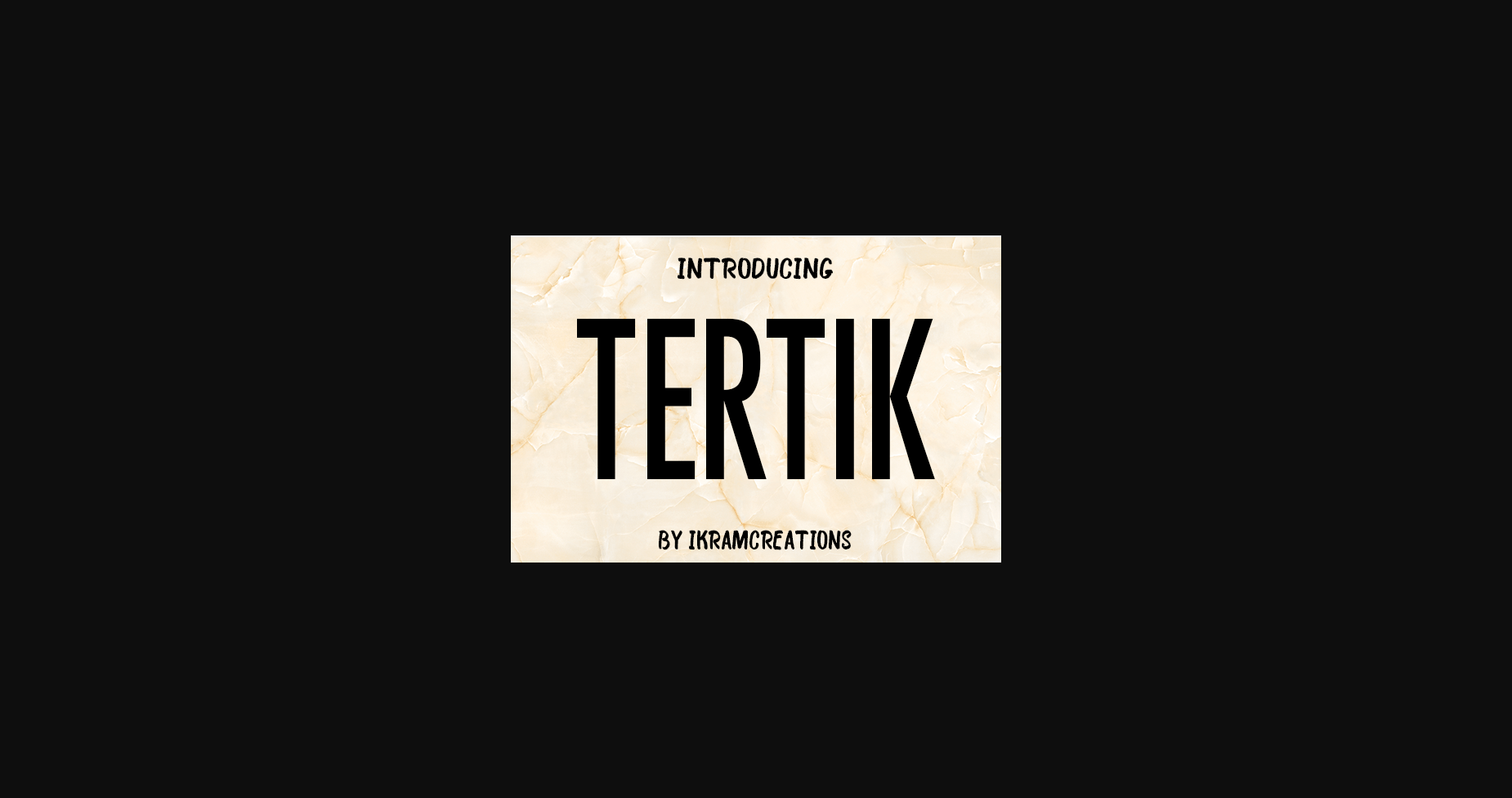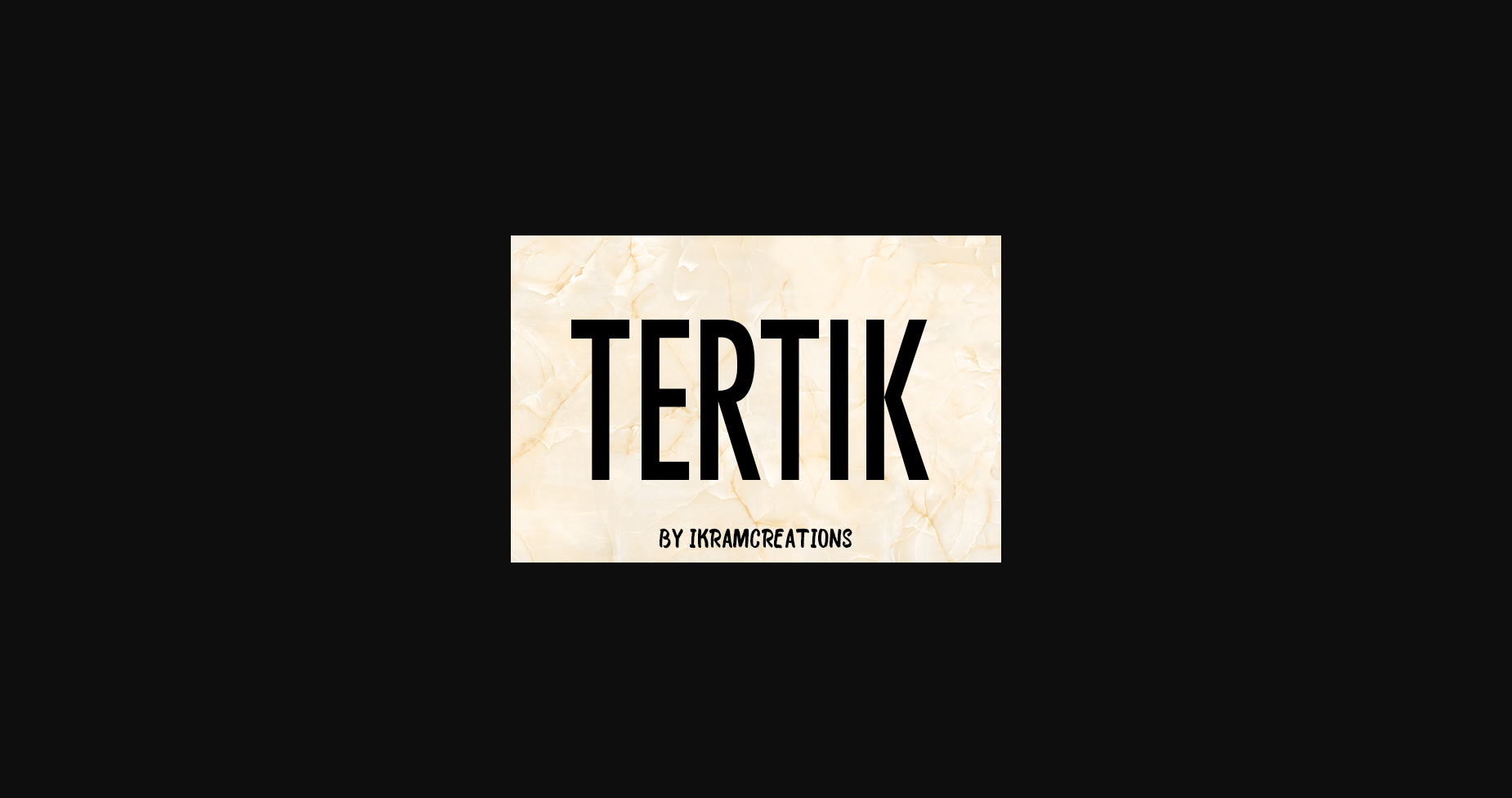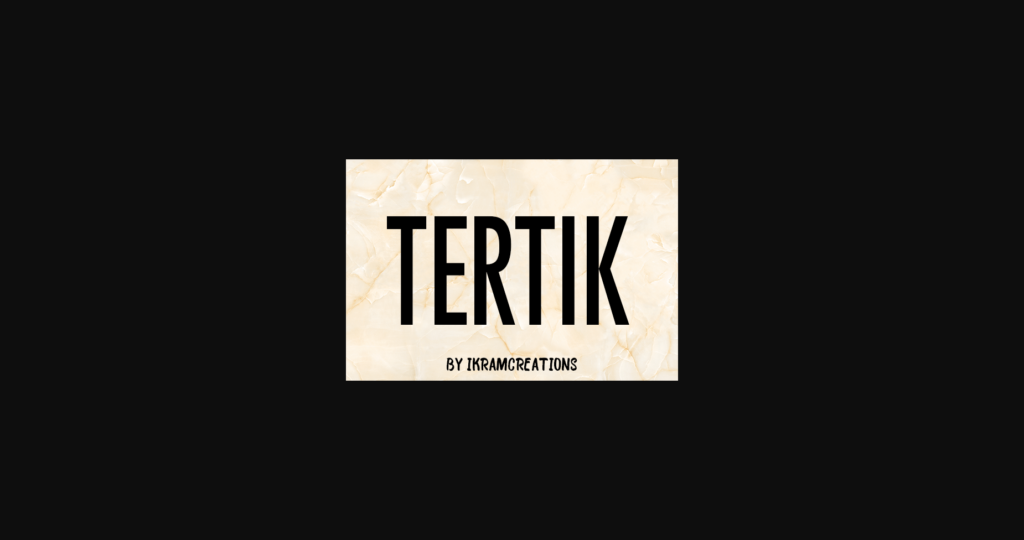
About Tertik Font
Tertik is a clean and natural sans serif font. This typeface is the best choice for creating eye-catching logos, branding, and quotes. Every letter has a unique and beautiful touch, which will make your design come alive!